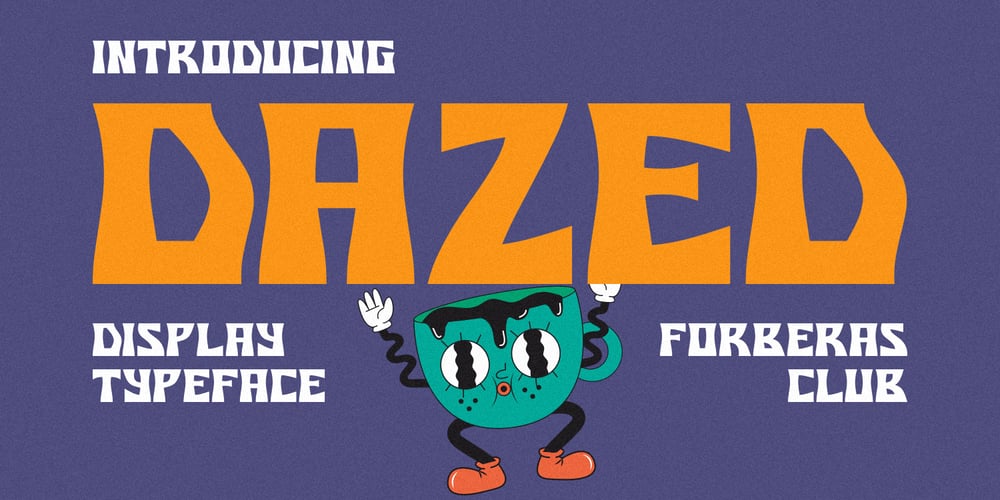
FC Dazed Font Family was designed by ANGGI HERMAWAN and published by Forberas Club. FC Dazed contains 1 styles and family package options. Introducing FC Dazed by Forberas ClubFC Dazed is a Handwritten Script font that will make your designs look classic, Farmhouse, Boho, and Feminine. It is a great font for events, Wedding Project, signature, album covers, logos, magazines, advertisements, Crafting Idea but it also works great for other projects. Add it to your fonts library, and it will enhance your creativity!FC Dazed is best for: – logos, branding, & Signatures. – Flyers, Album cover, Magazine, & Advertisements. – Website design , design blogs. – Quote graphics for social media. – and also it works great for other projects.Whats included : – Character Set – Numerals and Punctuation (OpenType Standard) – Accents (Multilingual characters)